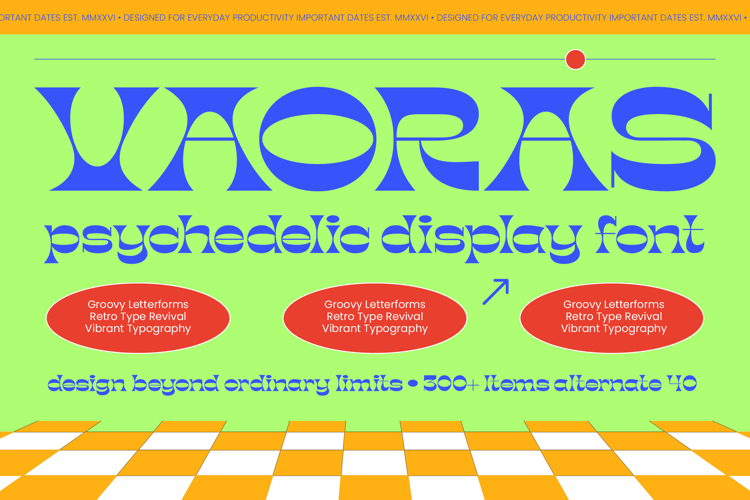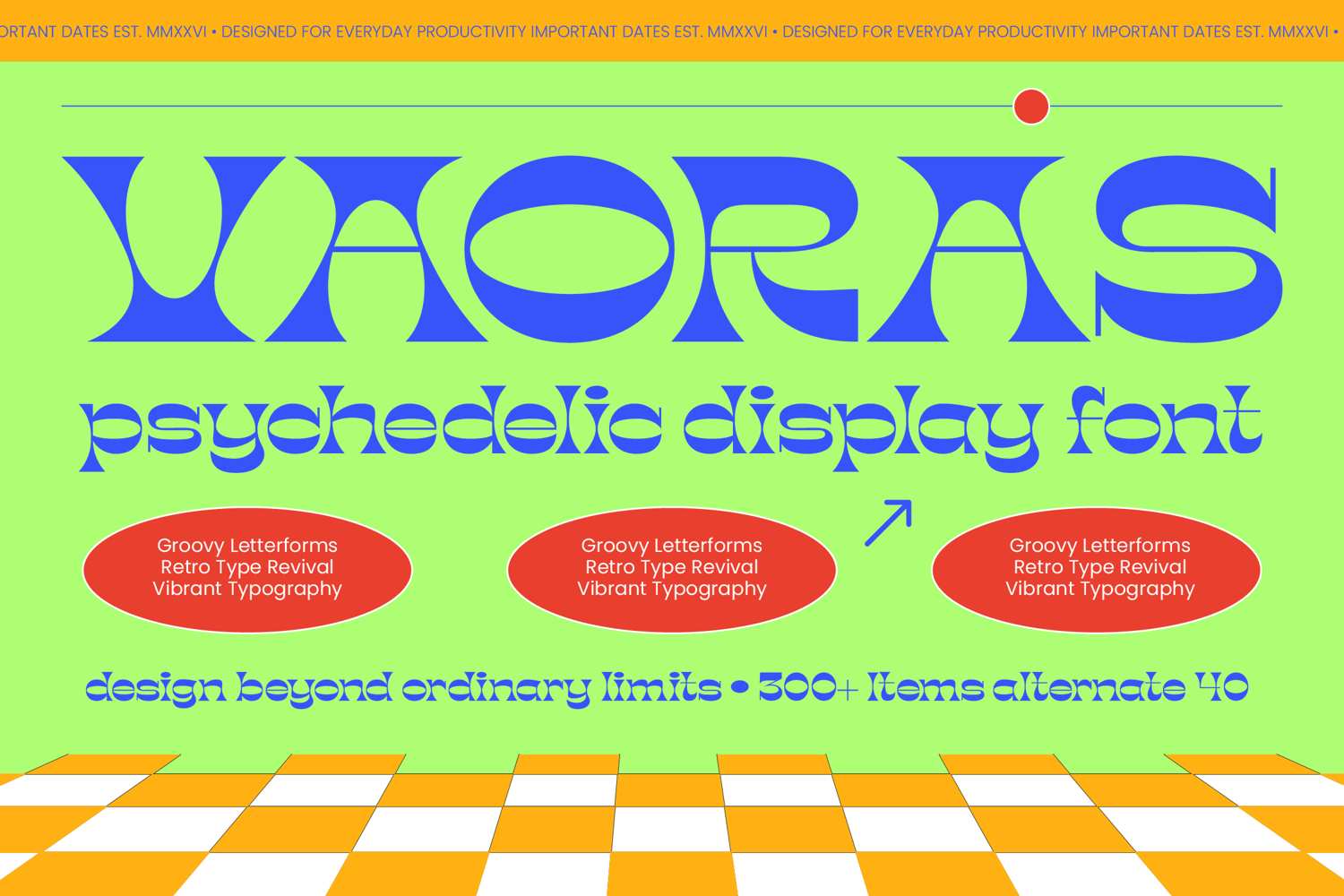
Vaoras - Psychedelic Display Font
Elevate your creative vision with a typeface that defines modern nostalgia and artistic expression. Vaoras - Psychedelic Display Font emerges as a bold visual powerhouse, blending fluid, groovy letterforms with a sophisticated retro-revival aesthetic. Its high-contrast strokes and liquid geometry create a rhythmic flow that captures attention instantly, making it an essential tool for designers seeking to leave a lasting impression.
Master the art of high-impact visual communication across diverse creative mediums and high-end industries. This typeface is the perfect choice for luxury branding, experimental editorial design, and premium packaging that demands a distinctive character. Whether applied to festival posters, music industry visuals, or fashion identities, Vaoras - Psychedelic Display Font delivers a level of expressive energy that ensures your standout headlines dominate any visual space.